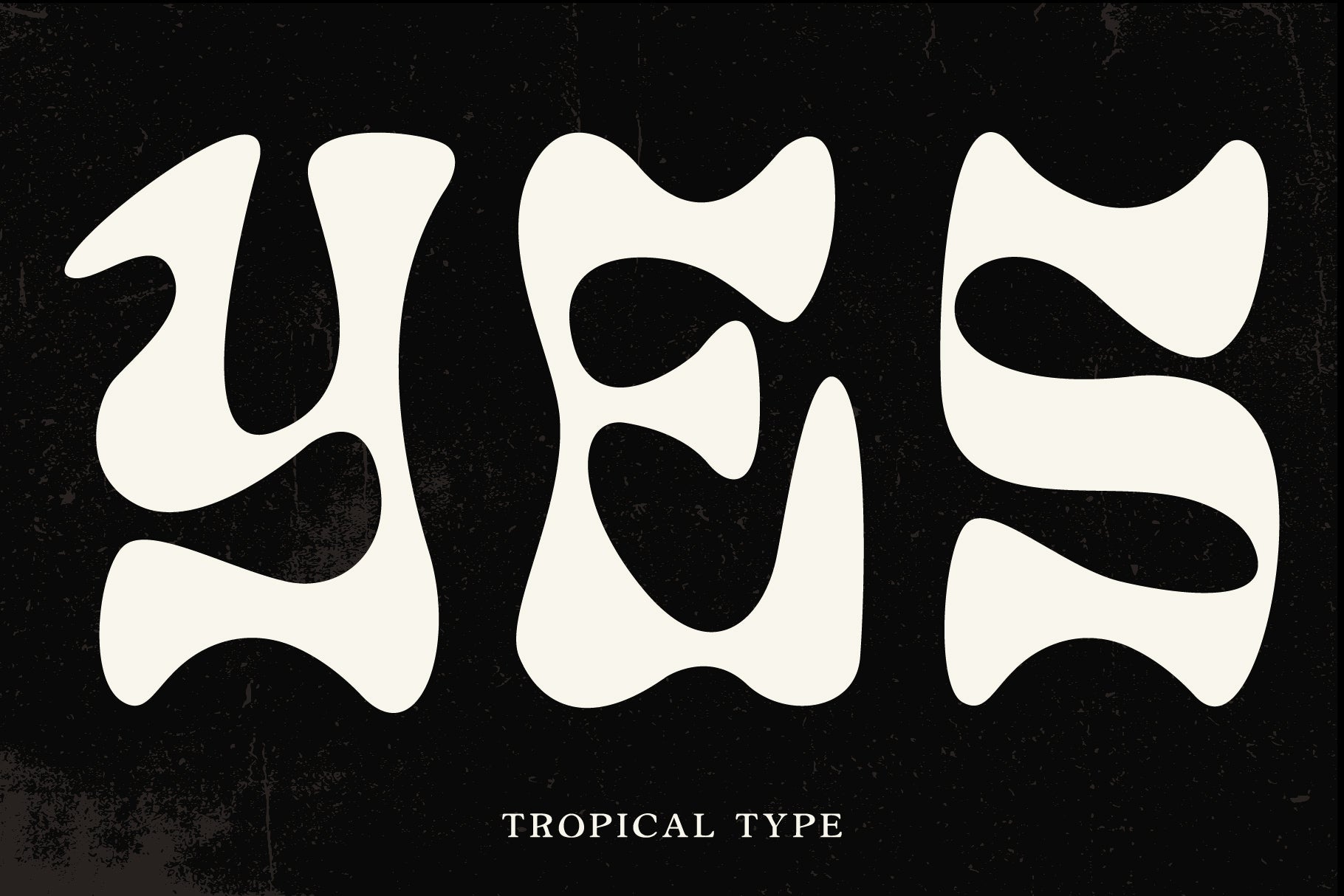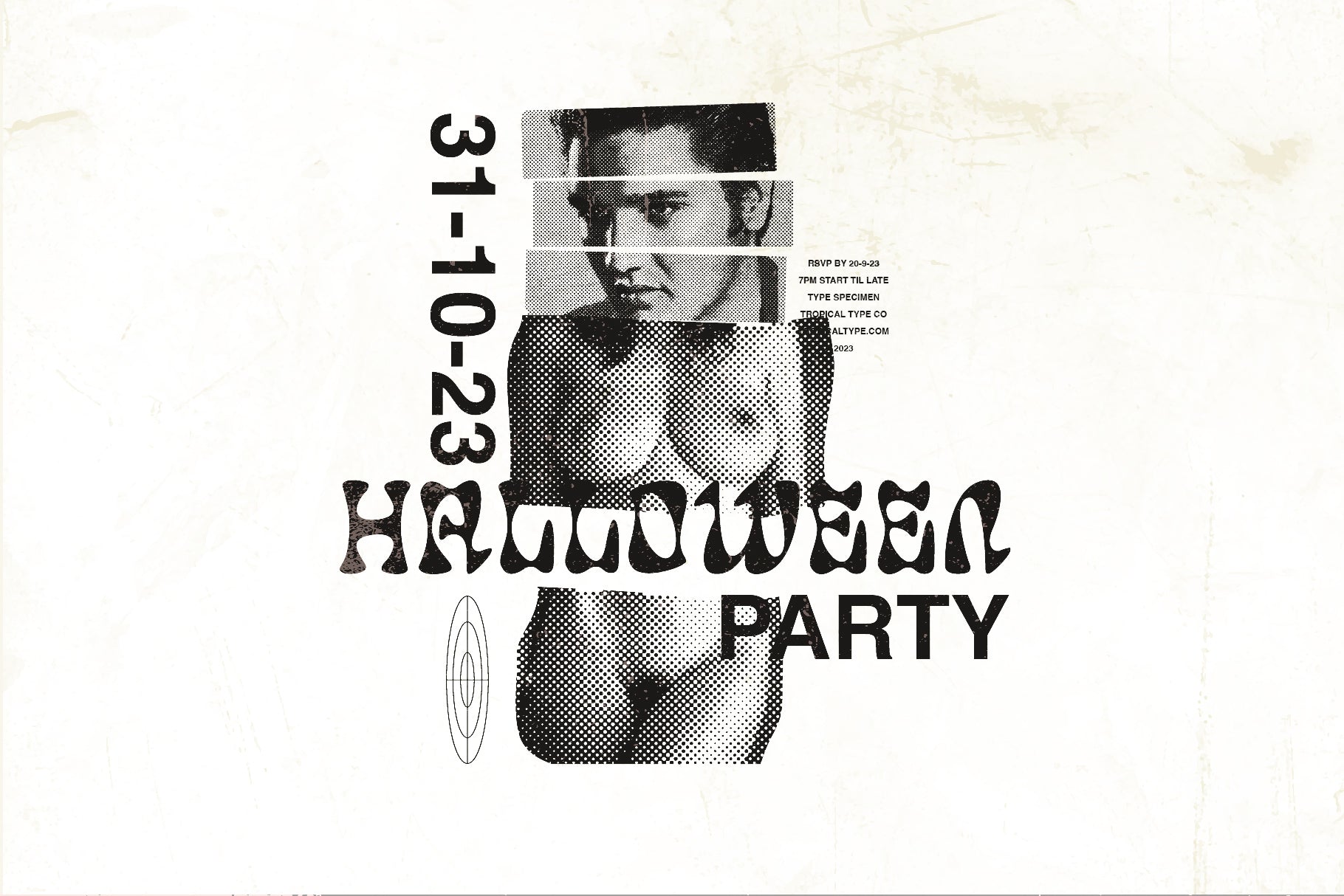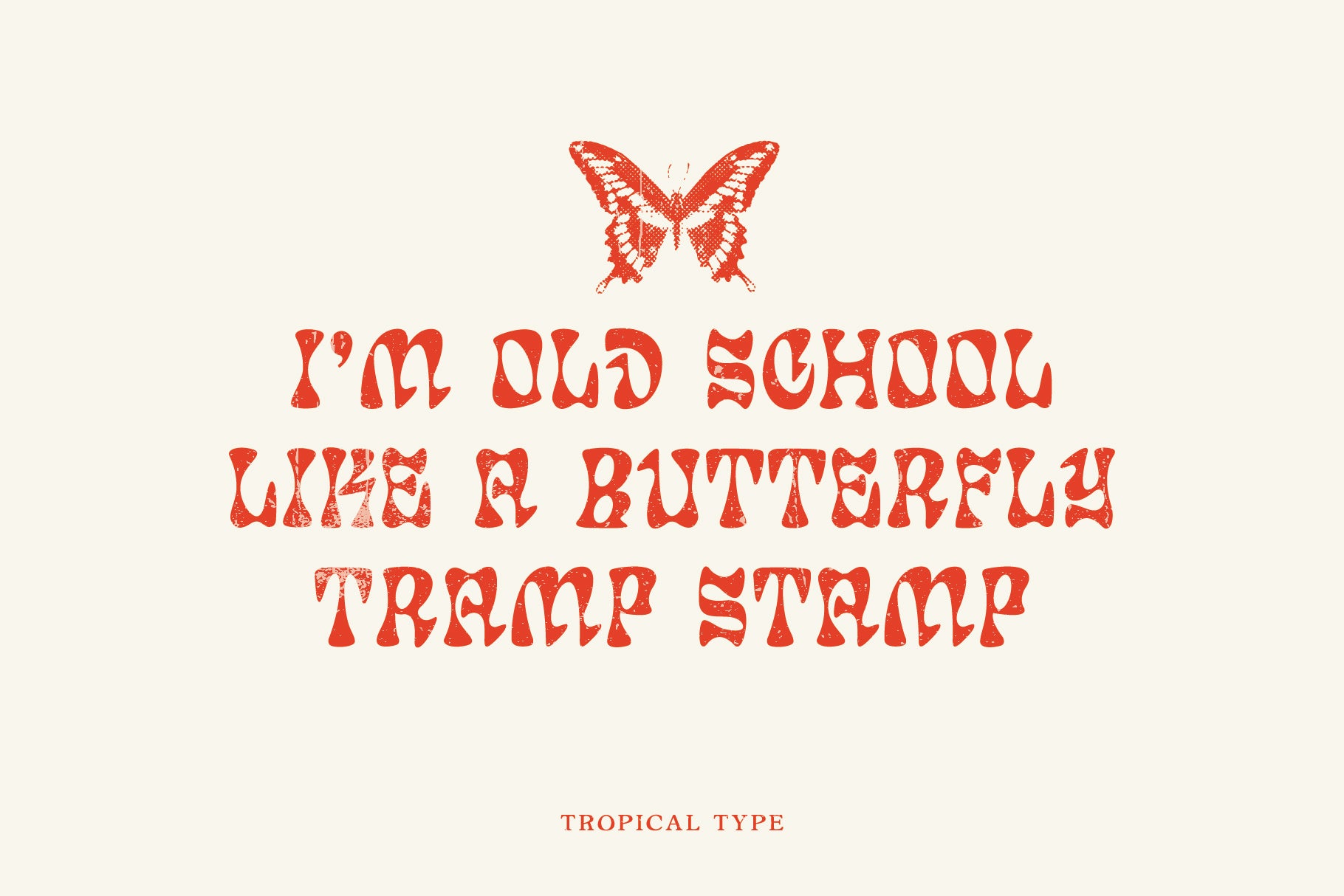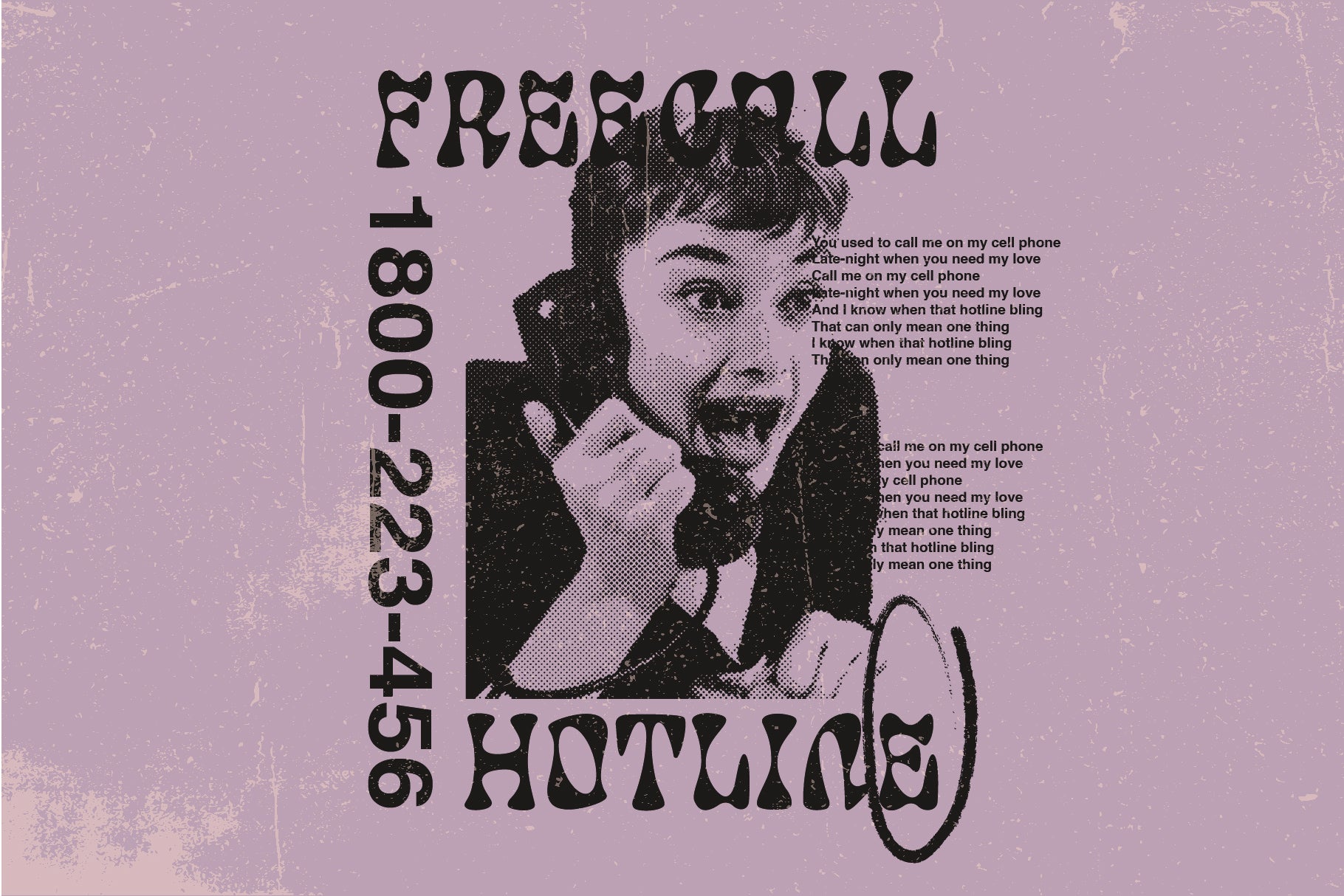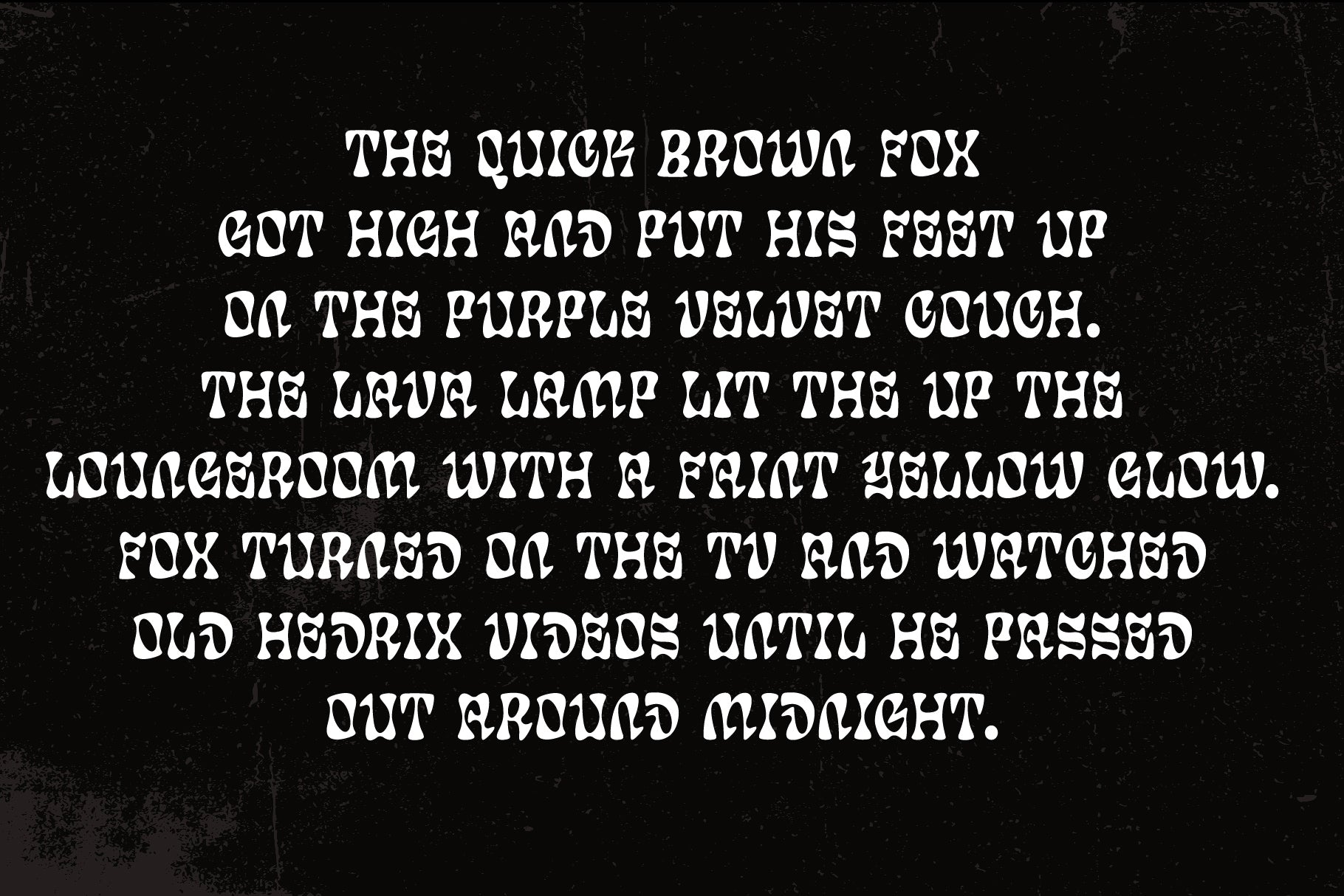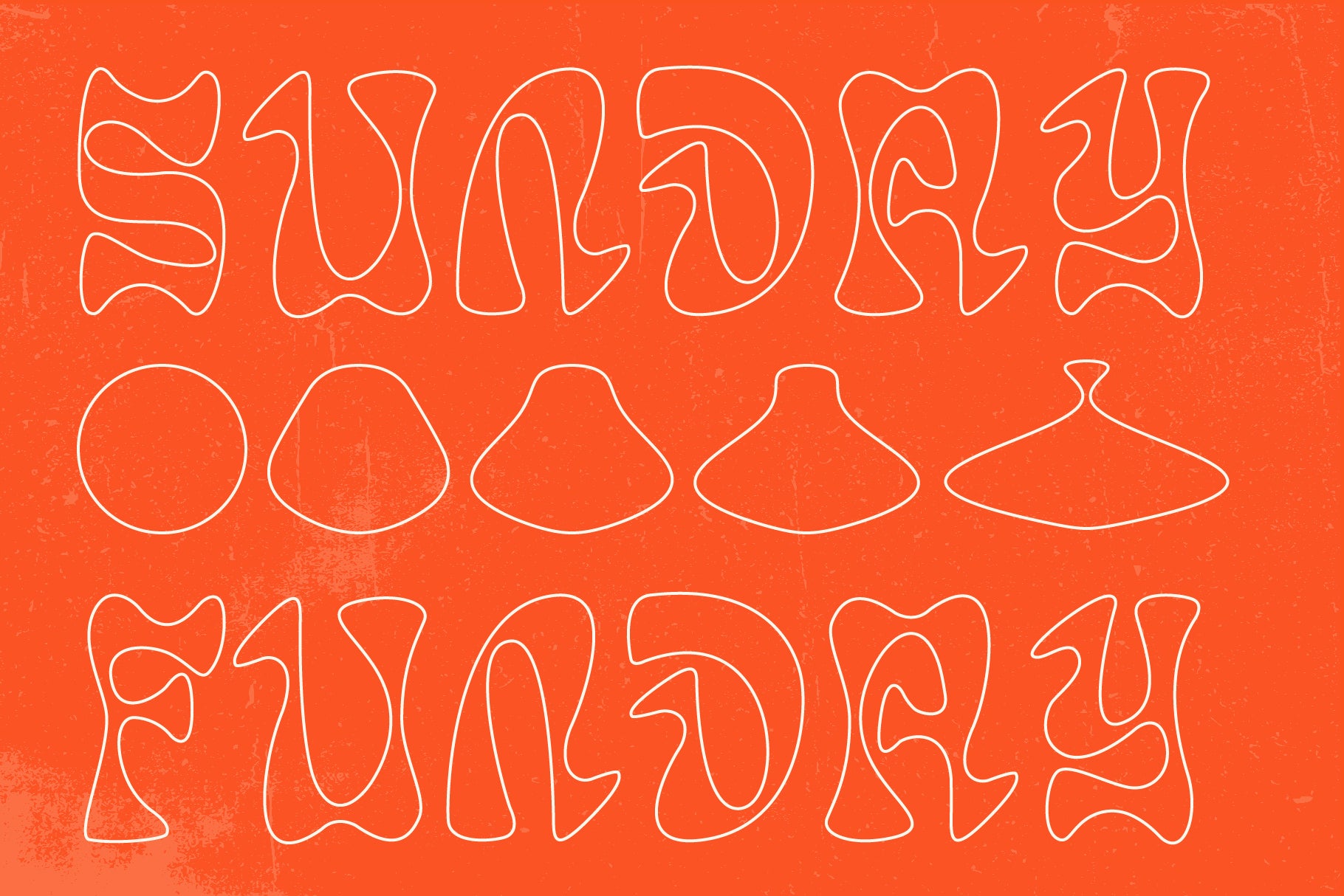
Dog Days
Dog Days is mut. A mixed breed of gothic, hippy and modern styles.
It's a band poster font.
A T-shirt logo font.
A halloween invite font.
You get the picture.